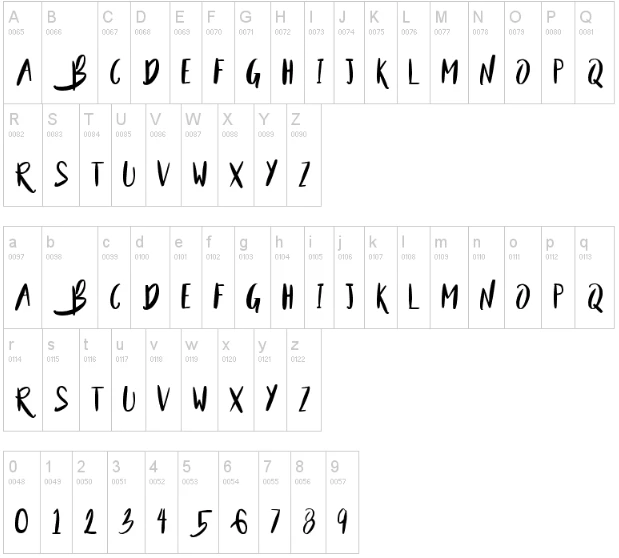
Beauty and the Beast Font Free Download
Disney has not published a font name for the Beauty and the Beast title, and the film lettering is treated as custom artwork. The font on this page, Beauty and the Beast by Francis John of Francis Studio, is a fan-made script with swashes and ligatures that gives the same fairy-tale look. Free options like Great Vibes and Cinzel Decorative also work.
About the Beauty and the Beast font
The film Beauty and the Beast came out from Disney in 1991, and a live-action remake followed in 2017. A Fonts In Use entry for the Beauty and the Beast stage musical notes an adjusted typeface with extra swashes and a metallic texture in its title, so the franchise keeps reworking the lettering for each version.
The font on this page was made by Francis John S. Villo (Francis Studio), version 1.00, dated October 25, 2015. Some sites say the 1991 film used this font. We could not find a source that confirms that, so treat it as a close fan-made match rather than the original.
The design is a handwritten and brush-style script. It has 273 characters in one regular weight, with Basic Latin, Latin-1 Supplement and Latin Extended characters, plus ligatures, stylistic alternates and swashes. It works on Windows, Mac and Linux.
DesignerFrancis John
PublisherFrancis Studio
ClassificationScript
What font does Beauty and the Beast use?
Disney has not named it. The title appears to be custom lettering. The fan-made Beauty and the Beast font on this page is a close style match.
Who made the Beauty and the Beast font?
Francis John S. Villo, publishing as Francis Studio.